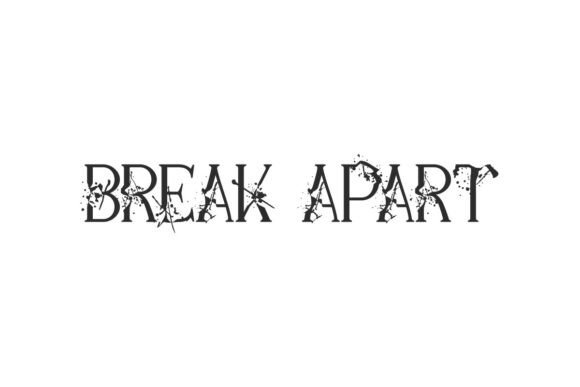
Unleashing Creative Chaos: The Break Apart Font Revolution
In the realm of typography, few fonts manage to capture the essence of raw energy and unconventional creativity as effectively as the Break Apart font. This decorative typeface has taken the design world by storm with its deliberately fractured and splattered letterforms, challenging visual expectations and embracing the beauty of “controlled chaos.” Whether you’re a designer looking to add an edge to your project or a crafter seeking to push the boundaries of creativity, the Break Apart font is an exceptional choice.
The Aesthetic of Controlled Chaos
The Break Apart typeface is not just a font; it’s an experience. Its fractured and splattered letterforms evoke the imagery of shattered glass or exploding ink, instantly conveying a sense of dynamic movement and intensity. This visual impact makes it an ideal choice for projects that require a high level of energy and creativity, such as high-intensity sports branding, experimental music posters, and edgy street-art graphics.
One of the standout features of the Break Apart font is its versatility. It doesn’t just act as a means of conveying text; it functions as a graphic texture, adding depth and complexity to any design. When used in large sizes against stark, solid backgrounds, the intricate “breakage” patterns of the font truly stand out, creating a high-impact look that’s hard to ignore.
Pairing for Impact
To maximize the effect of the Break Apart font, it’s essential to balance it with complementary typography. Clean, industrial sans-serifs provide a readable contrast to the font’s complex visual noise, creating a harmonious blend of form and chaos. This pairing not only enhances readability but also amplifies the visual impact of the design, making it perfect for bold headlines, album covers, and tech brand logos.
Applications Across Design Disciplines
The Break Apart font’s unique aesthetic lends itself to a wide range of applications across various design disciplines. Here are a few examples:
- Music and Entertainment: Use the Break Apart font to create eye-catching posters for experimental music events, album covers that reflect the artist’s edgy persona, or bold headlines for music blogs.
- Sports and Fitness: Add a competitive edge to sports branding with the Break Apart font, perfect for high-intensity sports like skateboarding, BMX racing, or extreme running.
- Street Art and Graphics: Incorporate the Break Apart font into street-art graphics, flyers, or stencil works to add a raw, urban feel.
- Technology and Gaming: The font’s fractured aesthetic makes it a great fit for tech brands, gaming logos, or digital platform interfaces that want to convey innovation and boldness.
Tips for Effective Use
To get the most out of the Break Apart font, consider the following tips:
- Size Matters: Use the font in large sizes to let its intricate details shine, especially when contrasted with solid backgrounds.
- Balance and Contrast: Pair the Break Apart font with simpler typography to maintain readability and create visual hierarchy.
- Color Considerations: Experiment with bold, vibrant colors to enhance the font’s chaotic aesthetic, or opt for monochromatic schemes to emphasize its texture.
The Break Apart font is more than just a typeface; it’s a statement of creative rebellion, a challenge to conventional aesthetics, and a testament to the beauty of controlled chaos. By incorporating this font into your design projects, you’re not just choosing a font; you’re embracing a visual ethos that celebrates raw energy, unconventional creativity, and the unbridled spirit of innovation. Whether you’re a seasoned designer or a crafty DIY enthusiast, the Break Apart font invites you to push the boundaries of what’s possible in typography and design.